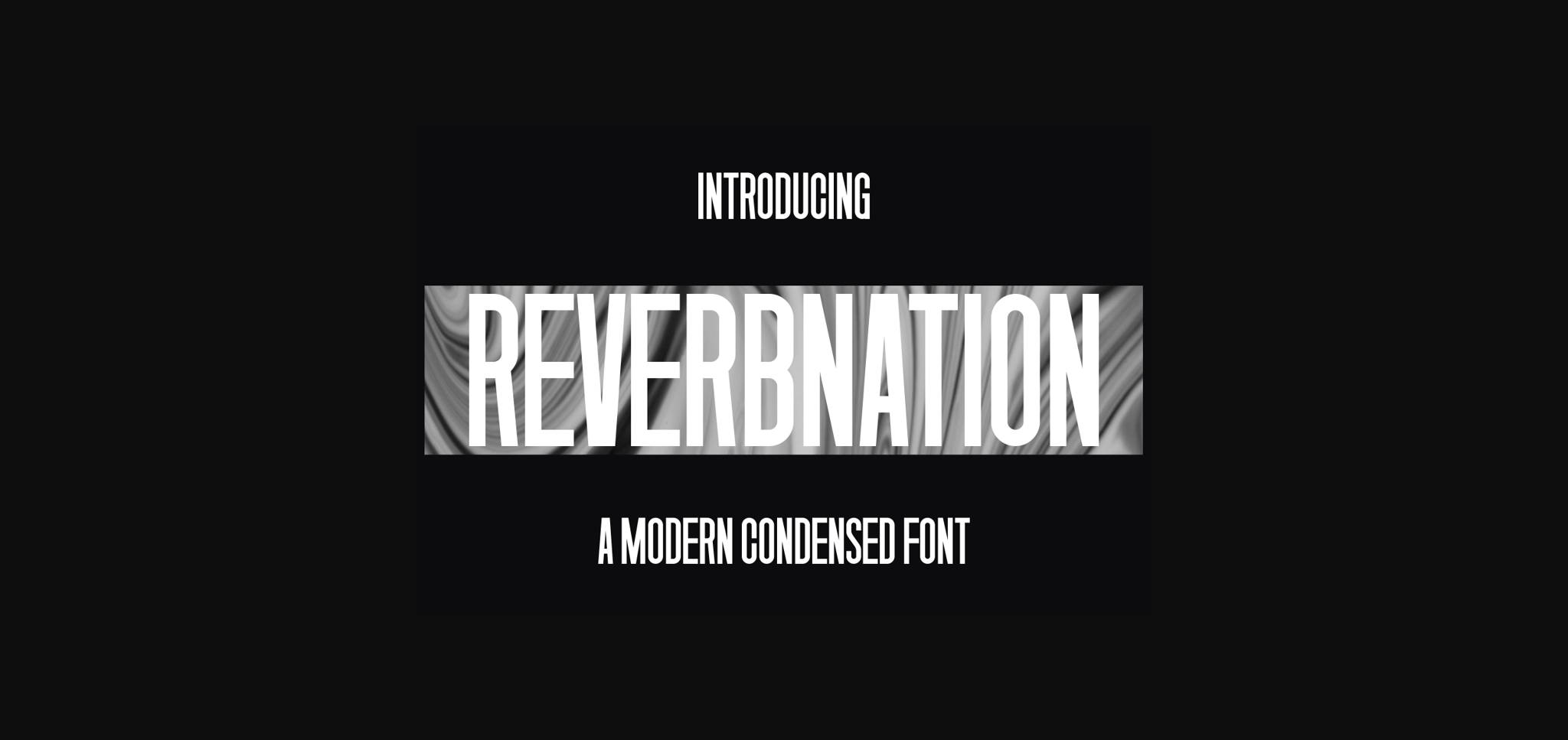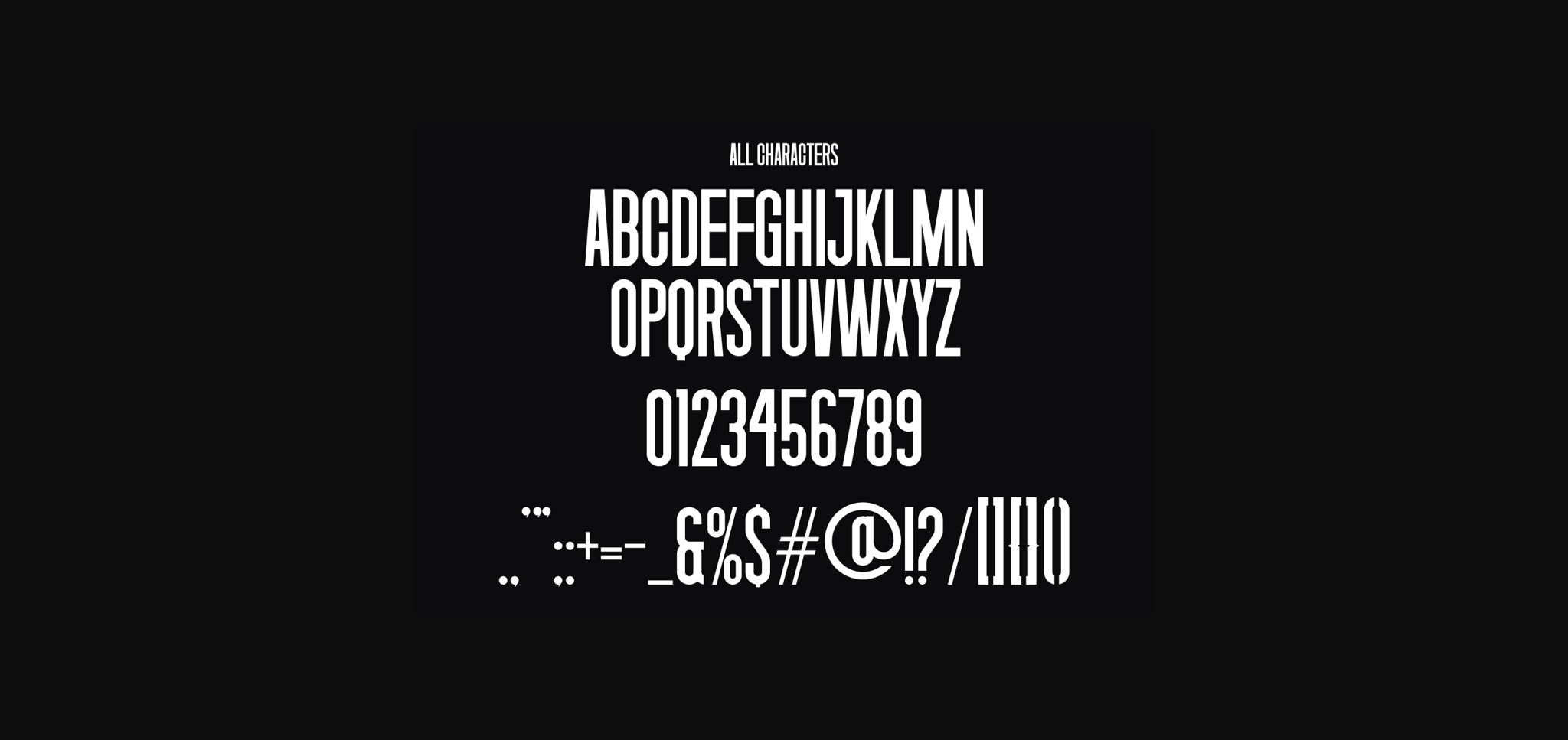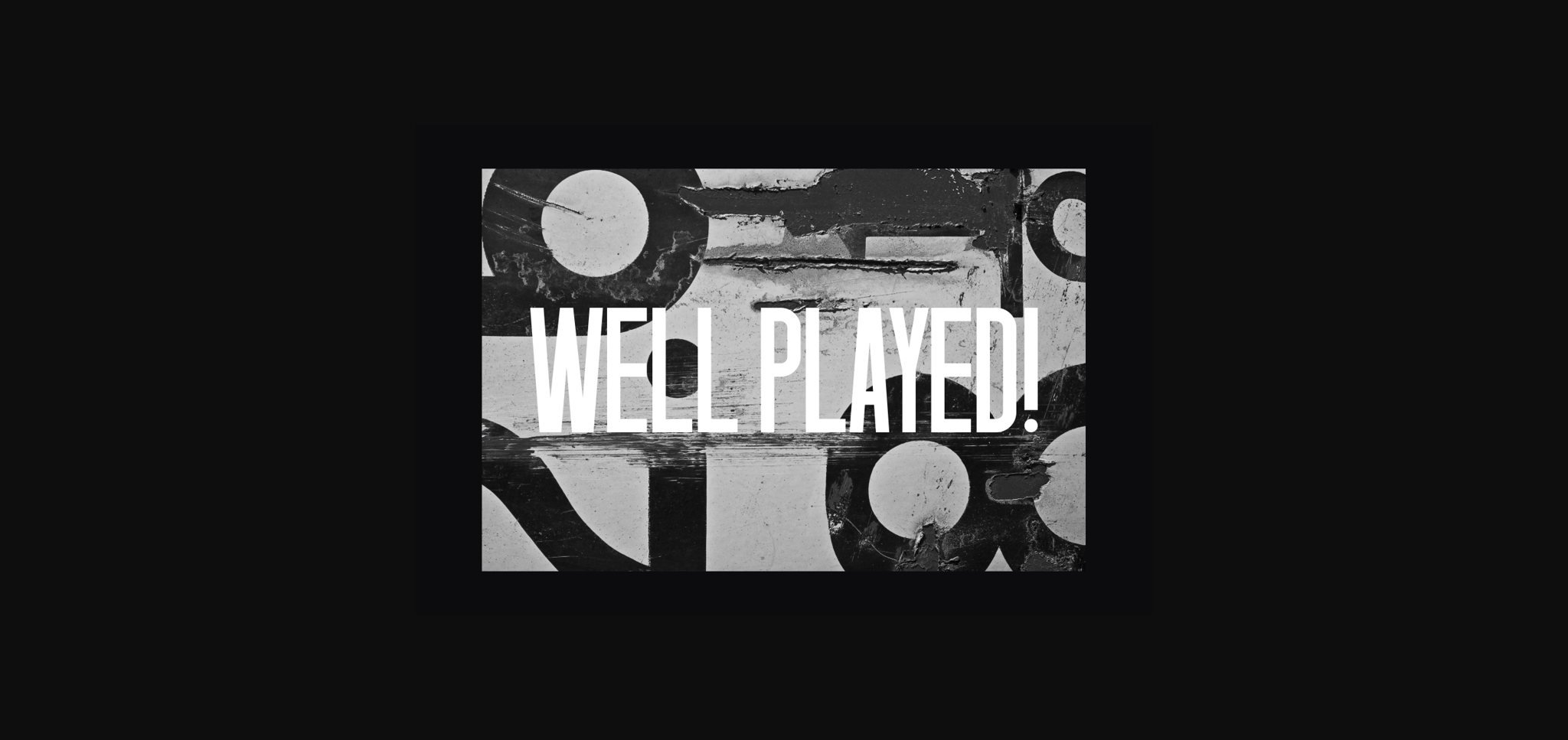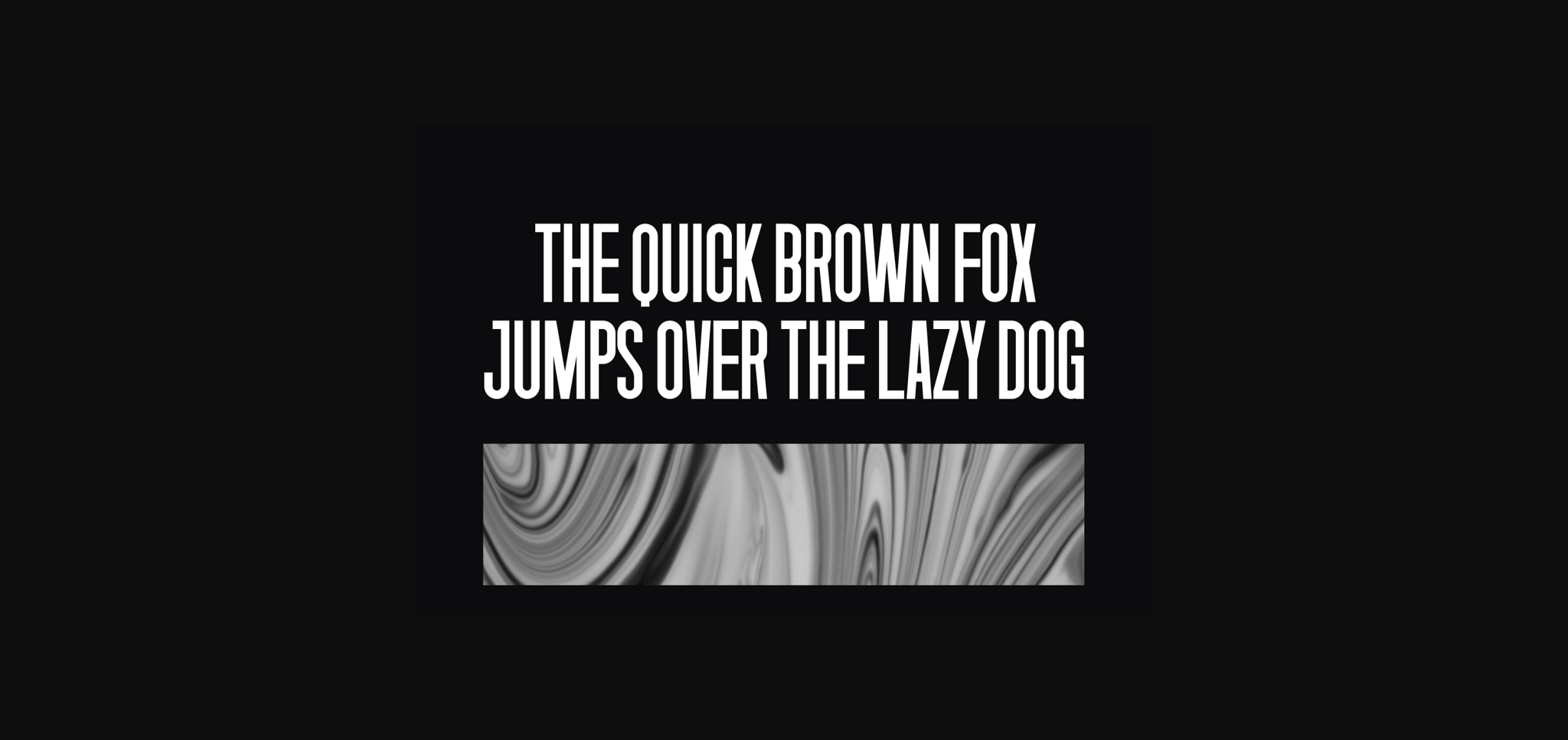
About Reverbnation Font
Reverbnation is an authentic and unique modern condensed font that is perfect for professional and product branding needs. This font is suitable for any branding project such as quotes, logos, blog headers, posters, ribbons, letters, invitations, stationery and much more.